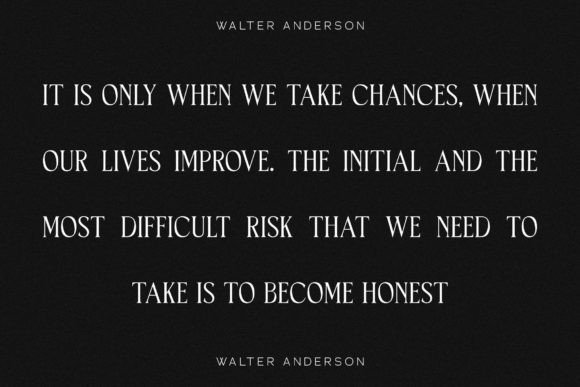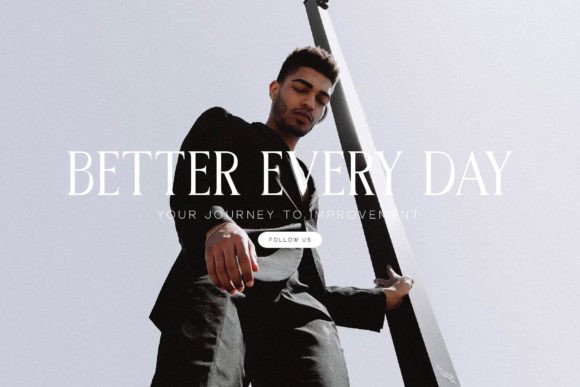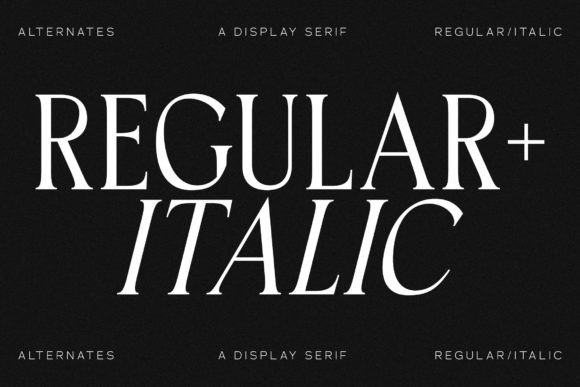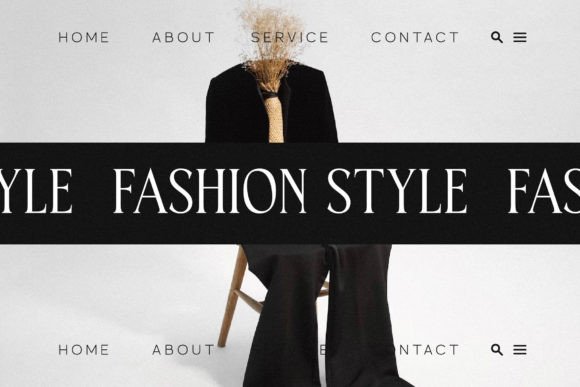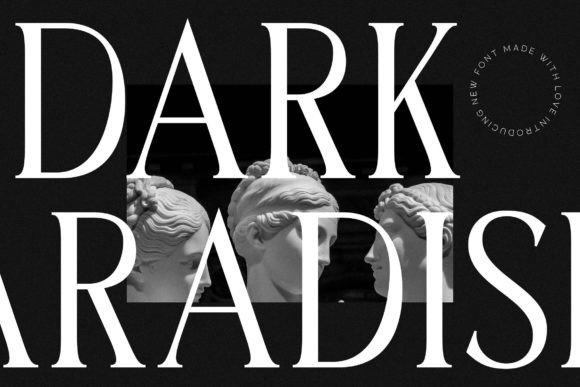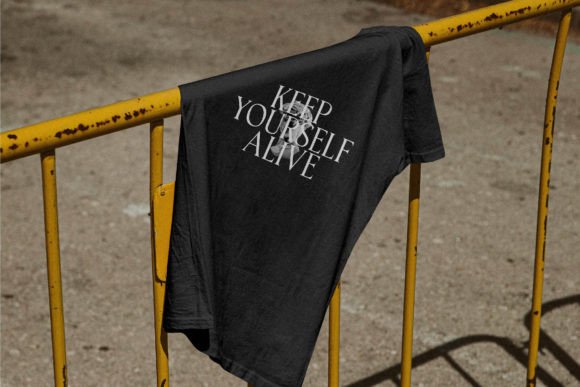
Discovering the Perfect Design Resource: Horge Font
As a designer, you know the feeling of being stuck in a creative rut. You’re working on a project, and you just can’t seem to find the right font to bring it all together. That’s when you stumble upon something that makes your heart skip a beat – a font that’s both modern and timeless, elegant and luxurious. For many designers, that font is the Horge Font, a true design treasure that elevates any project to the next level.
Whether you’re working on a high-end fashion brand, a luxurious magazine, or a movie title design, the Horge Font is the perfect choice. Its unique style and modern look make it a versatile design resource that can be used in a wide range of creative projects. And the best part? It’s available for free download, making it an accessible choice for designers of all levels.
With its high-quality design and transparent background, the Horge Font is a valuable addition to any designer’s toolkit. So why settle for a font that’s just okay, when you can use a font that’s truly exceptional? Discover the beauty of the Horge Font and take your creative projects to new heights.
Key Features of Horge Font
- Unique characteristics include intricate details and subtle nuances, making it a standout choice for designers seeking a distinctive look.
- Perfect for use in logos, branding, and typography-focused creative projects where a high-quality, custom font is essential.
Honest Review: Horge Font
I recently had the chance to test out the Horge Font and I must say, it’s a great addition to any designer’s toolkit. As a design resource, I was impressed by the high quality of the font and the ease of use.
- ✨ High quality and detailed design
As with any font, there are some limitations:
- ⚠️ Limited character set, may not be suitable for complex projects
Overall, I was impressed by the Horge Font and would definitely consider using it for a creative project. While it may not be perfect, its strengths far outweigh its weaknesses.
Tips for Getting the Most Out of Horge Font
For optimal results, use the Horge Font on a transparent background to create a seamless design. You can also experiment with different font sizes and styles to achieve the desired look for your creative project.
The Horge Font is suitable for a variety of design projects, including business cards, brochures, and social media graphics. Its high-quality design and transparent background make it an ideal choice for creating visually appealing and professional-looking designs.
Comparison to Horge Font: Oswald has a more modern and sleek design compared to Horge Font, which is more vintage and elegant. Oswald is ideal for designers who want a clean and professional look, while Horge Font is better suited for projects that require a touch of nostalgia and sophistication.